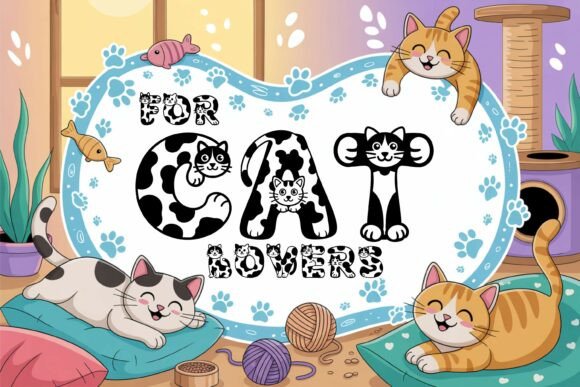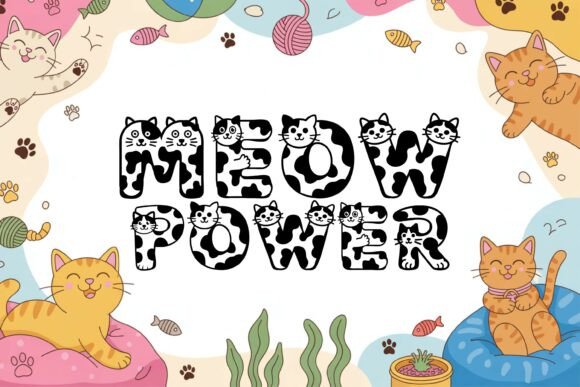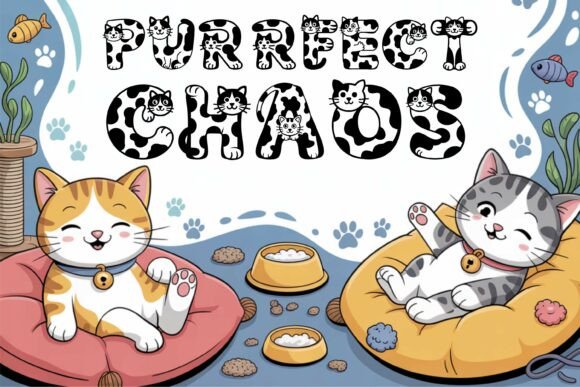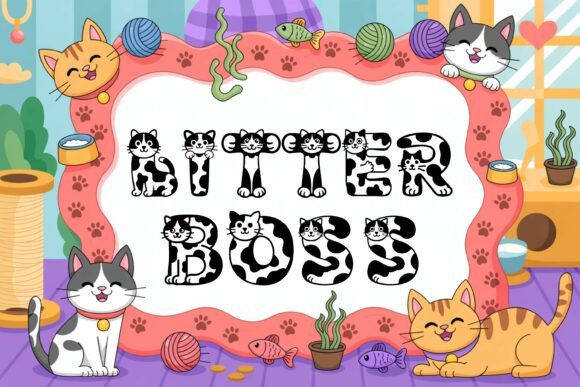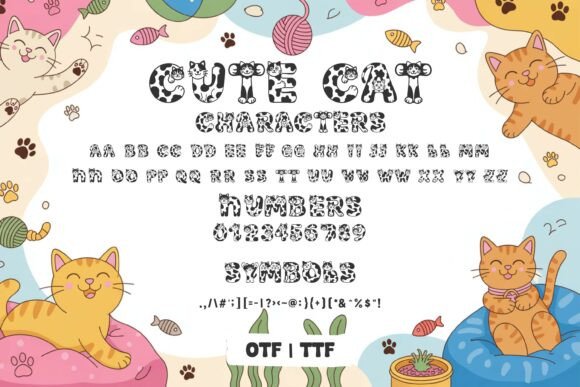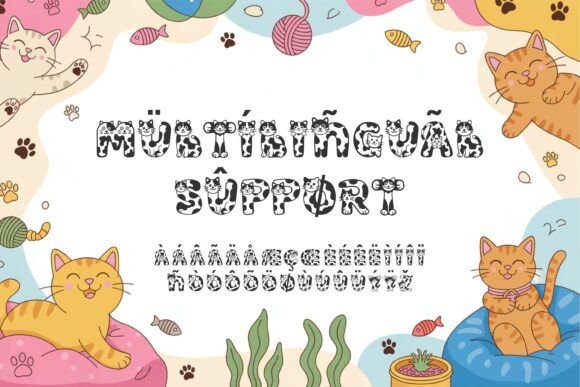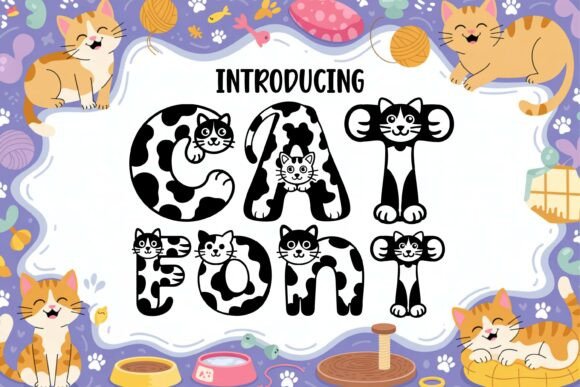
Introducing the Cute Cat Font: A Playful Typeface for Creative Projects
Are you a cat lover, designer, or crafter looking for a unique and playful font to add a touch of personality to your projects? Look no further than the Cute Cat Font! This hand-sketched typeface is designed to bring a smile to your face with its irresistible feline allure and enchantingly cheeky cat-inspired details.
A Font that’s Purr-fect for Creative Projects
The Cute Cat Font is a delightful addition to any creative project, from kiddie crafts to animal-themed creations or artistic ventures with a fun spin. Its fanciful demeanor infuses personality and warmth into your designs, making it perfect for a wide range of applications. Whether you’re a designer, crafter, or DIY enthusiast, this font is sure to become your new favorite companion.
- Distinctive t-shirts and apparel
- Heartwarming greeting cards and invitations
- Catchy stickers and labels
- Inviting party invites and event flyers
- Charming nursery wall art and decals
- Scrapbooking templates and journal pages
- Instructive classroom printouts and educational materials
- Engaging social media graphics and posts
What Makes the Cute Cat Font So Special?
The Cute Cat Font is more than just a font – it’s a design element that can transform banal text into remarkable designs that burst with a convivial, light-hearted aura. The bold, circular characters ensure legibility while maintaining a playful and whimsical feel. Each character is carefully crafted to bring a sense of joy and personality to your projects.
Why Choose the Cute Cat Font?
There are many reasons why the Cute Cat Font stands out from the crowd:
- Unique and playful design: The Cute Cat Font is a one-of-a-kind typeface that’s sure to grab attention and bring a smile to people’s faces.
- Hand-sketched with love: Each character is carefully crafted with attention to detail, giving the font a personal and human touch.
- Perfect for cat enthusiasts and innovators: If you’re a cat lover or enjoy creating playful and imaginative designs, this font is purr-fect for you!
Tips and Inspiration for Using the Cute Cat Font
To get the most out of the Cute Cat Font, here are some tips and inspiration to get you started:
- Mix and match with other fonts: Combine the Cute Cat Font with other fonts to create interesting and dynamic typography.
- Experiment with colors and textures: Add an extra layer of personality to your designs by experimenting with different colors and textures.
- Use it for kids’ projects: The Cute Cat Font is perfect for kids’ projects, such as creating fun and educational materials, party invitations, or nursery wall art.
- Get creative with graphics and illustrations: Use the Cute Cat Font to add a touch of personality to your graphics and illustrations, such as cat-themed designs or playful icons.